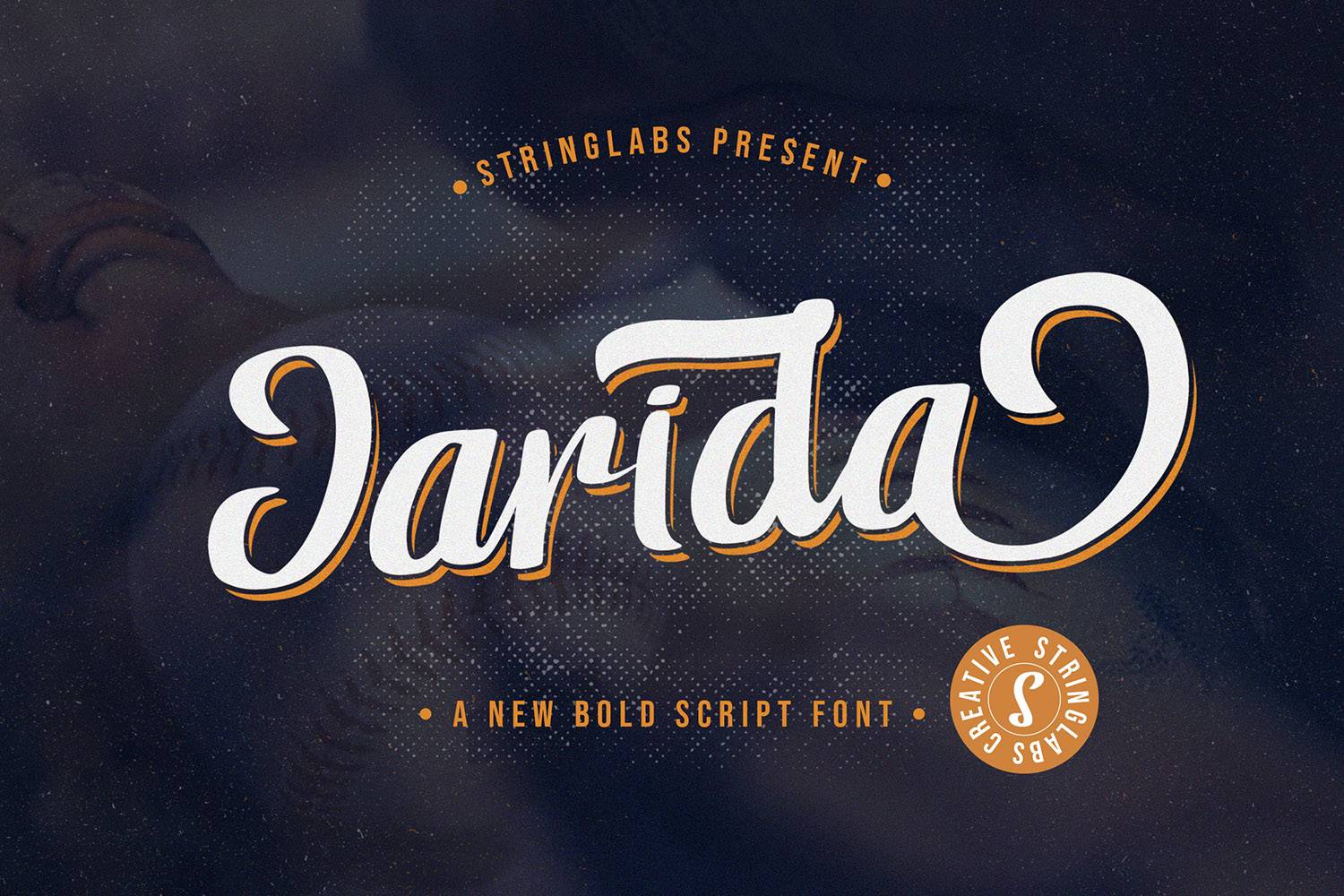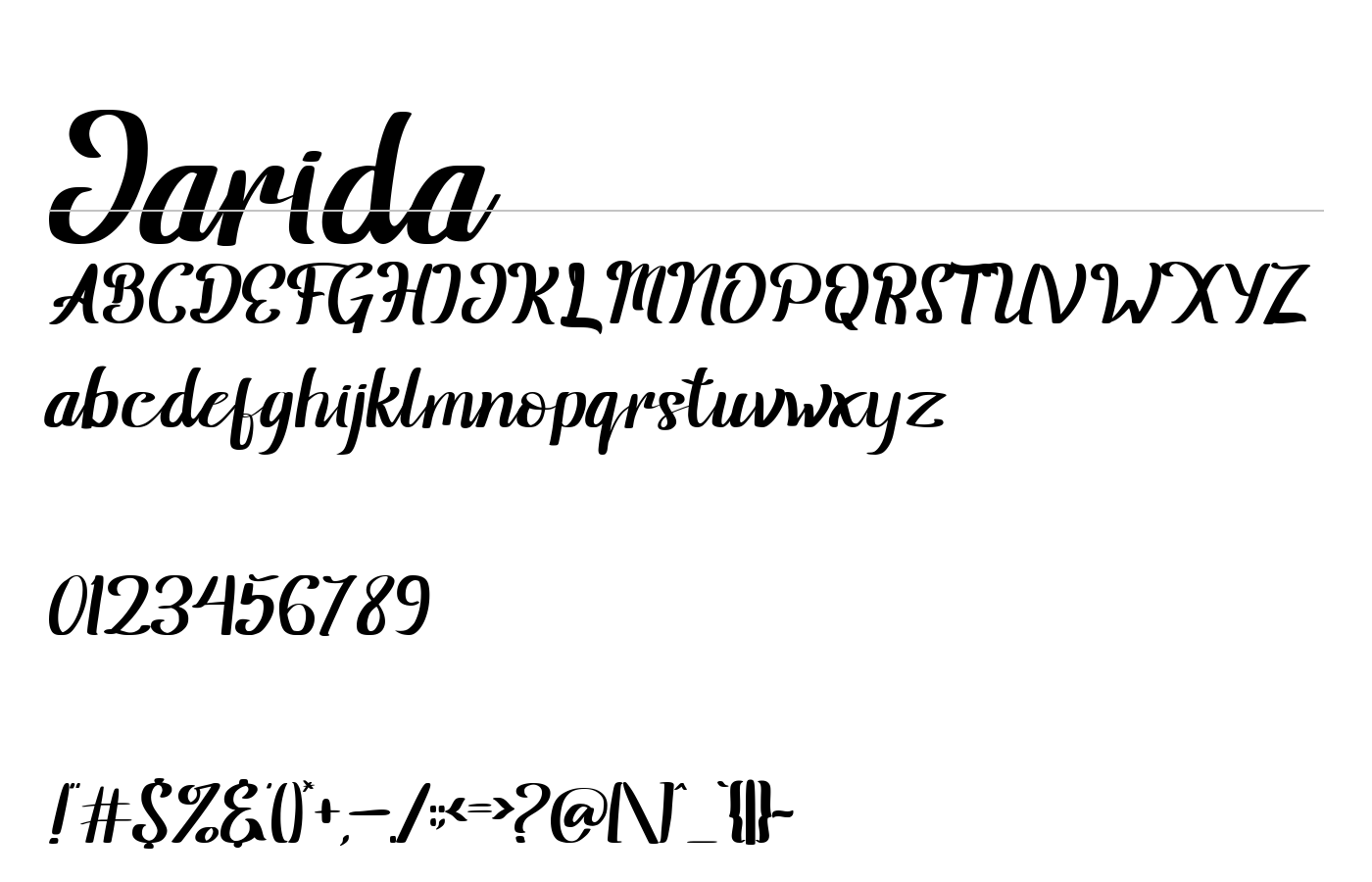
Jarida is a stylish script font with a clean and elegant flow, featuring smooth, moderately thick strokes and a slight italic slant that adds a dynamic feel. Its unique mix of calligraphic influences and modern letterforms makes it perfect for creative branding, logos, and headlines that want to express sophistication with a friendly, approachable personality. This font works beautifully where a touch of handwritten charm and graceful flair is desired.
Jarida Font
About Jarida Font